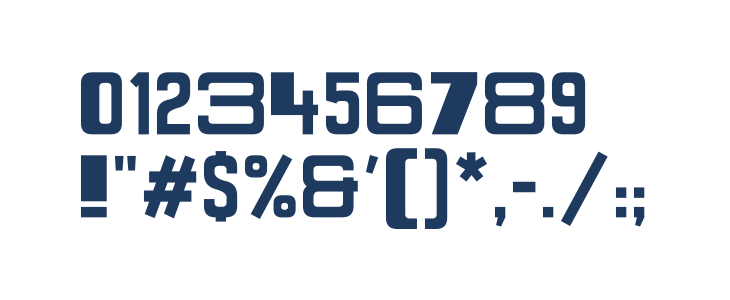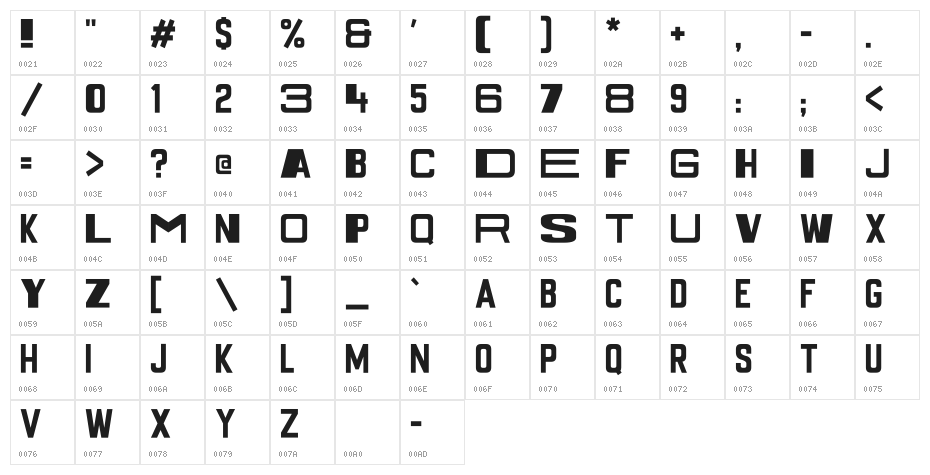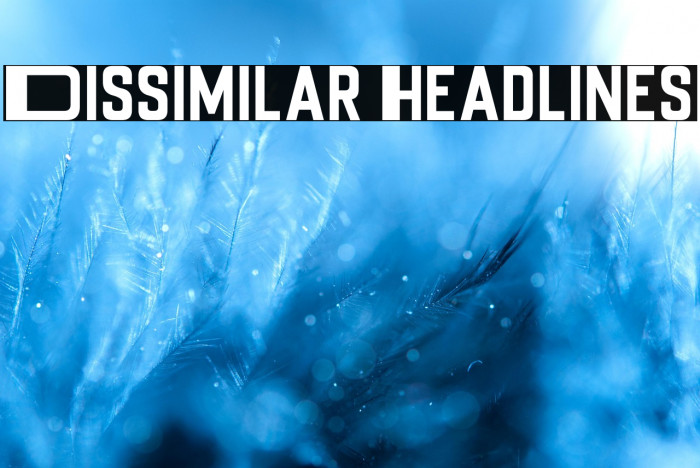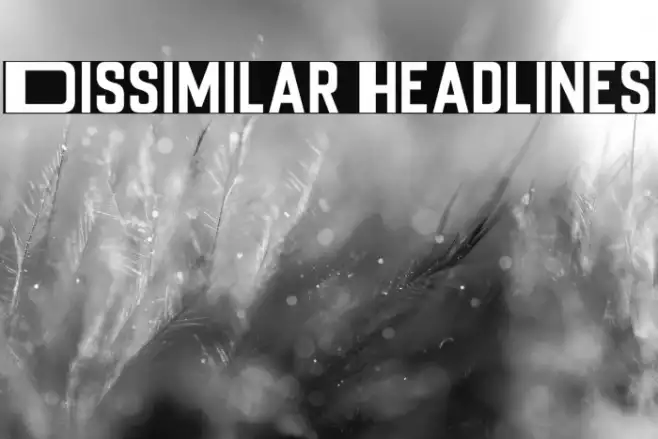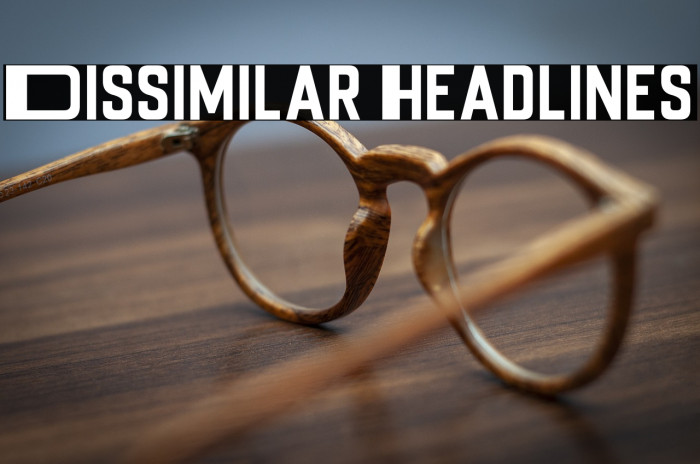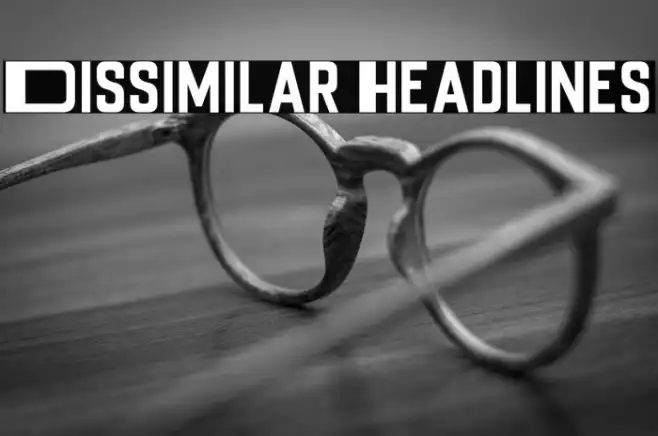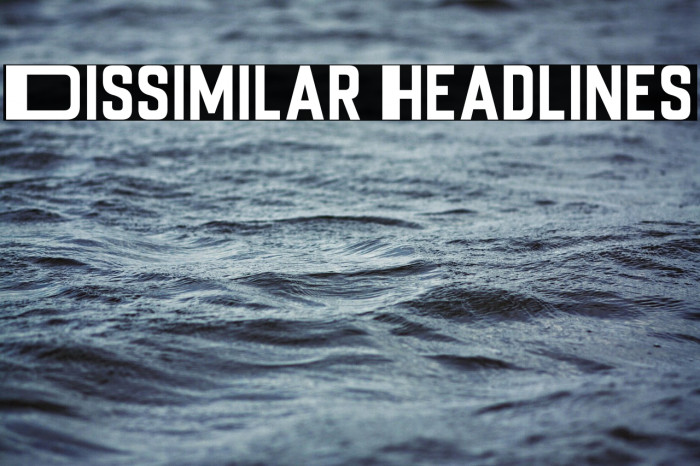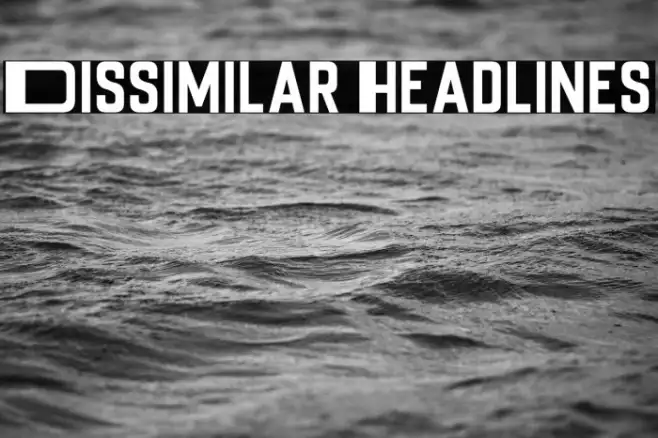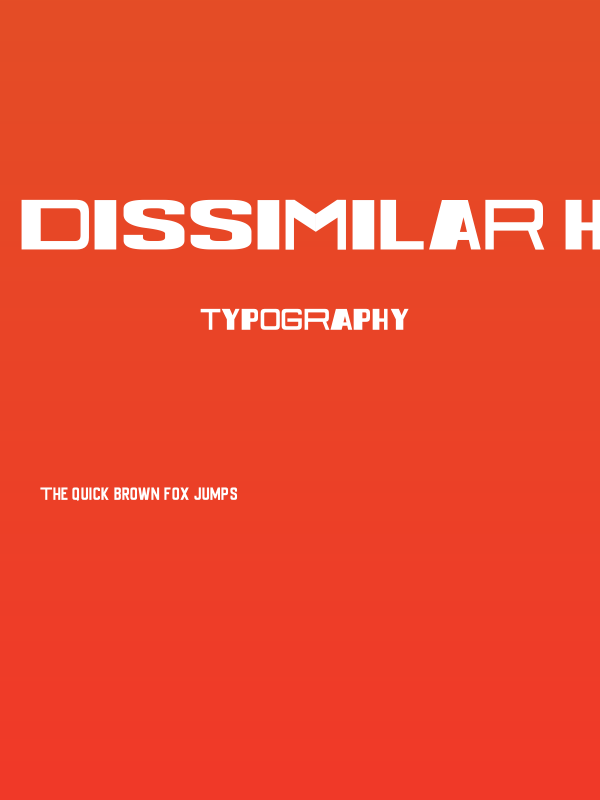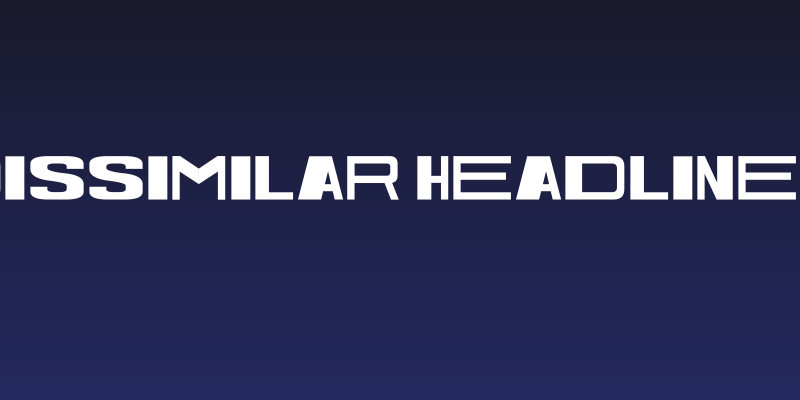
Dissimilar Headlines Font
Dissimilar Headlines Description
This font exhibits a bold, geometric style with a modern and industrial feel. The uppercase letters are characterized by strong, angular lines and a uniform thickness, giving them a robust and impactful appearance. The numbers and special characters maintain this consistency, ensuring a cohesive look across all glyphs. The font's design is clean and straightforward, making it suitable for attention-grabbing headlines and titles. Its boldness and clarity make it ideal for projects that require a strong visual presence.
| Proposed Projects | Ideal for headlines, posters, branding, and advertising materials where a strong visual impact is needed. |